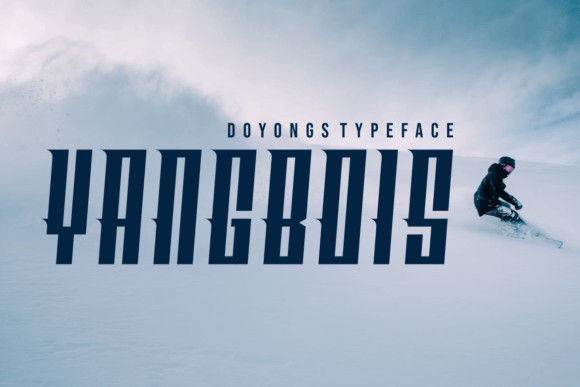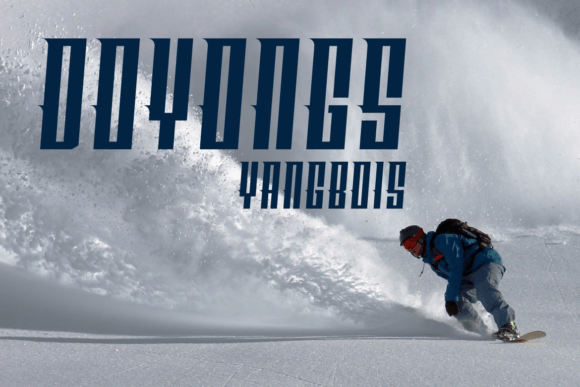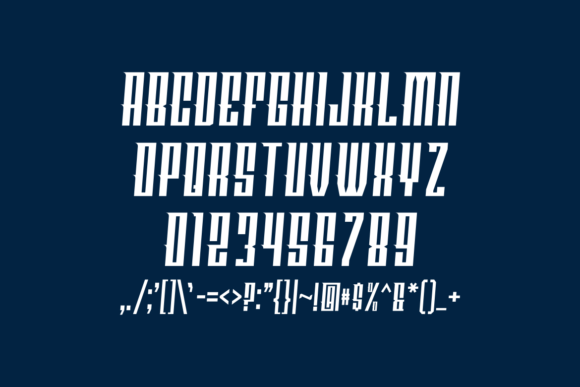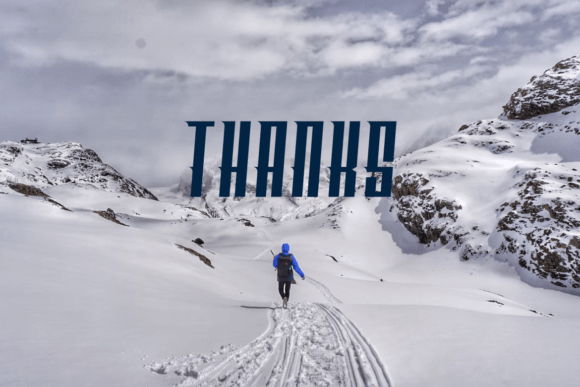
Introduction to Doyongs Font
Remember that moment when you’re working on a creative project and you’re stuck trying to find the perfect font to bring your idea to life? It’s like searching for a missing puzzle piece – frustrating and time-consuming. But what if I told you there’s a game-changing font that can elevate your designs and make your work shine? Enter the Doyongs Font, a cool and modern display font that’s about to become your new best friend.
Whether you’re a seasoned designer or just starting out, the Doyongs Font is an invaluable addition to your design resource library. With its high-quality design and transparent background, this font is perfect for any creative project that requires a touch of sophistication and style.
Key Features of Doyongs Font
- High-quality, unique font design ideal for creative projects
- Transparent background design allows for versatile usage in various backgrounds
- Available in a range of sizes, from 10pt to 100pt, for optimal legibility
- High-resolution design (300 DPI) suitable for print and digital applications
- Perfect design resource for graphic designers, artists, and creatives
Honest Review: Doyongs Font
I recently stumbled upon the Doyongs Font and I must say, it’s been a game-changer for my creative projects. The font is free to download and has a transparent background, making it super easy to use as a design resource.
Here are some things that I love about Doyongs Font:
- ✨ High quality and crisp typography: The font is incredibly detailed and looks amazing in various sizes and formats.
- ✨ Versatile: The font can be used for a wide range of creative projects, from branding and marketing materials to digital art and graphics.
- ✨ Unique style: The font’s unique style and flair make it stand out from other fonts in its class.
- ⚠️ Limited character set: While the font is extensive, it’s not as comprehensive as some other fonts on the market.
- ⚠️ May not be suitable for all projects: The font’s unique style may not be suitable for all types of projects, particularly those requiring a more traditional or conservative look.
Overall, I’m really impressed with Doyongs Font and would highly recommend it to anyone looking for a high-quality, unique font for their creative project.
Tips for Getting the Most Out of Doyongs Font
To get the most out of Doyongs Font, try experimenting with different font sizes and colors to create a unique visual effect. You can also use the font in combination with other design elements, such as images and graphics, to add depth and interest to your design.
Doyongs Font is a versatile font that can be used in a variety of creative projects, including graphic design, digital art, and typography. It’s a great design resource for anyone looking to add a unique touch to their designs.